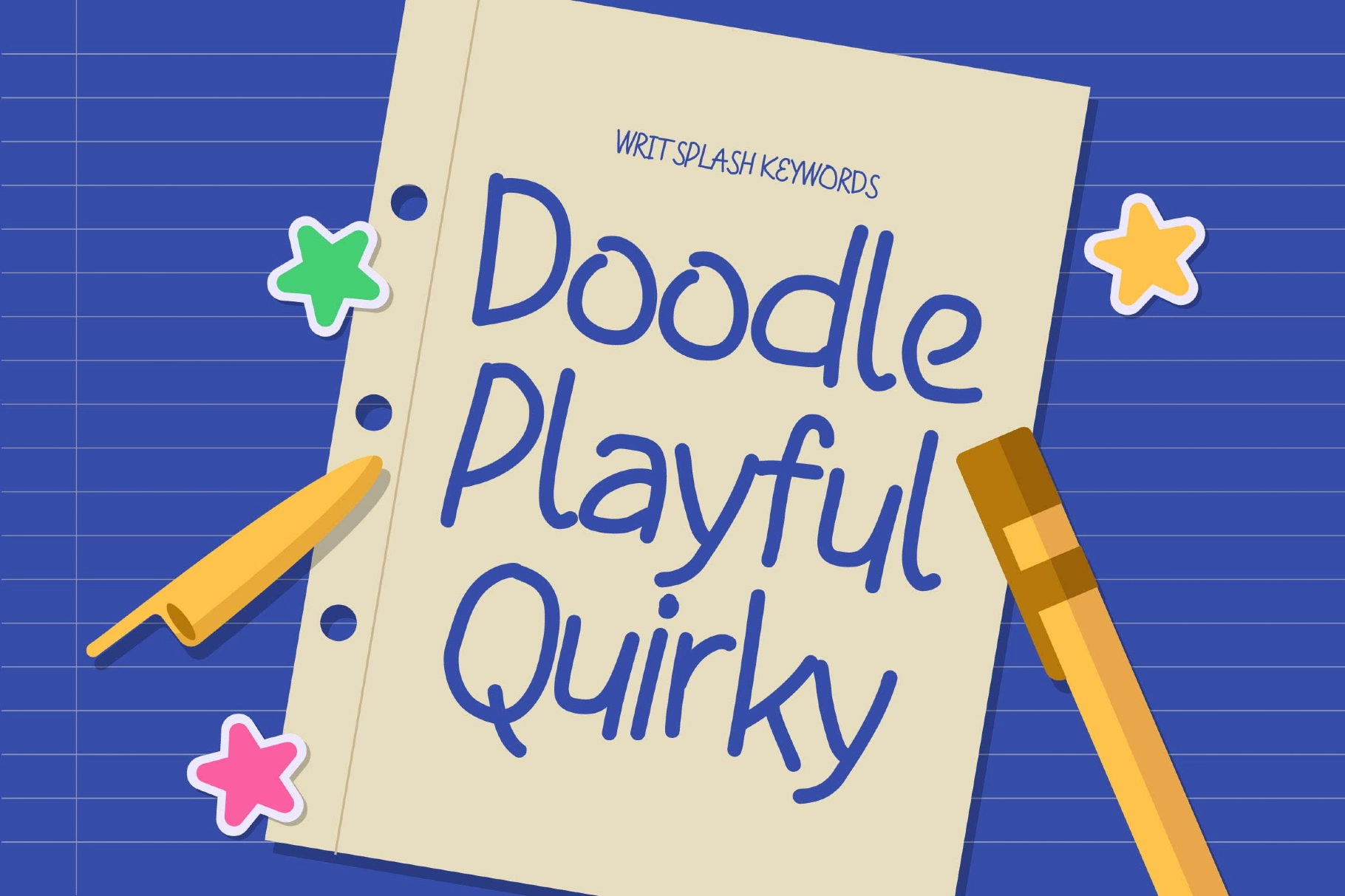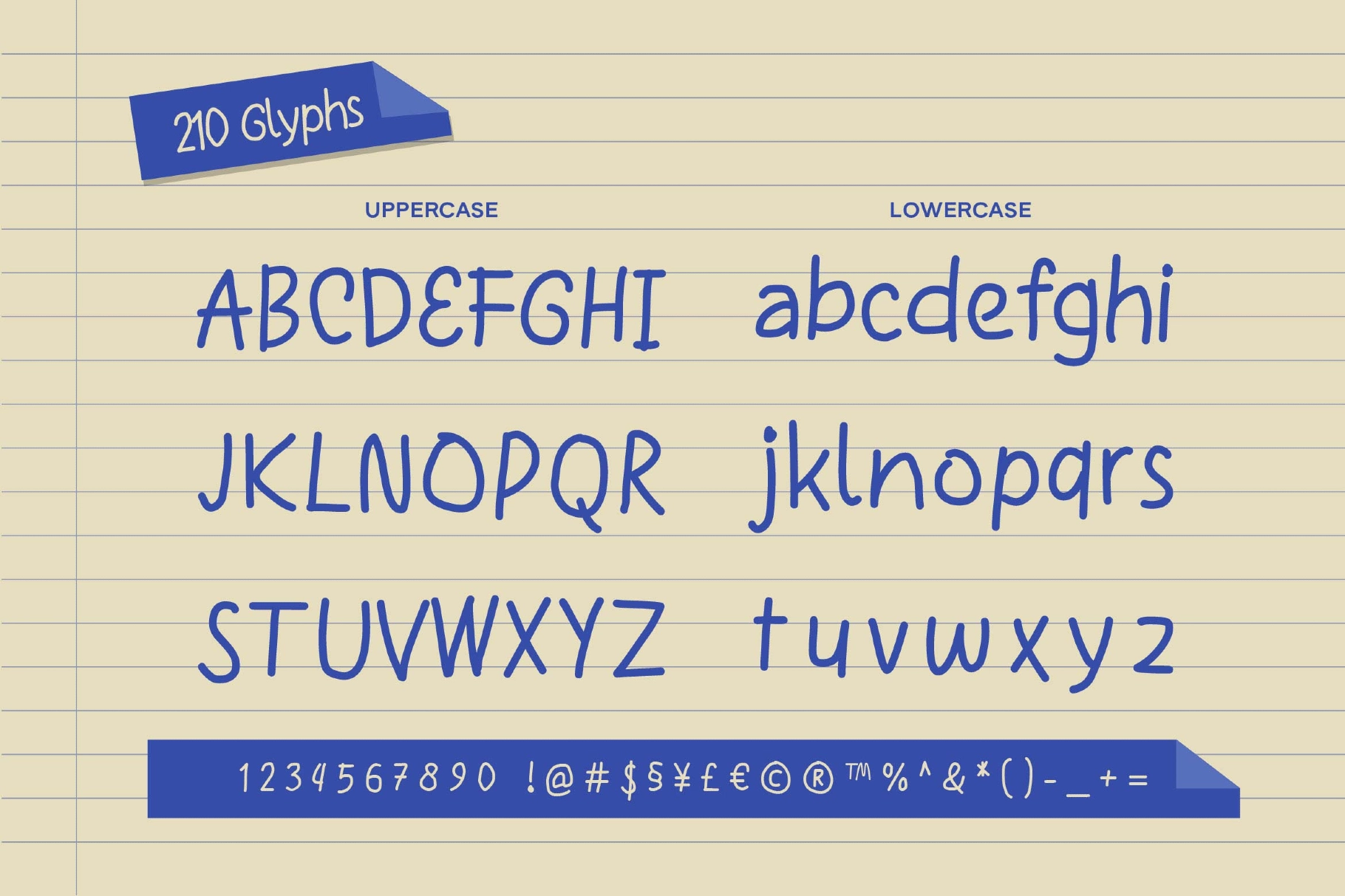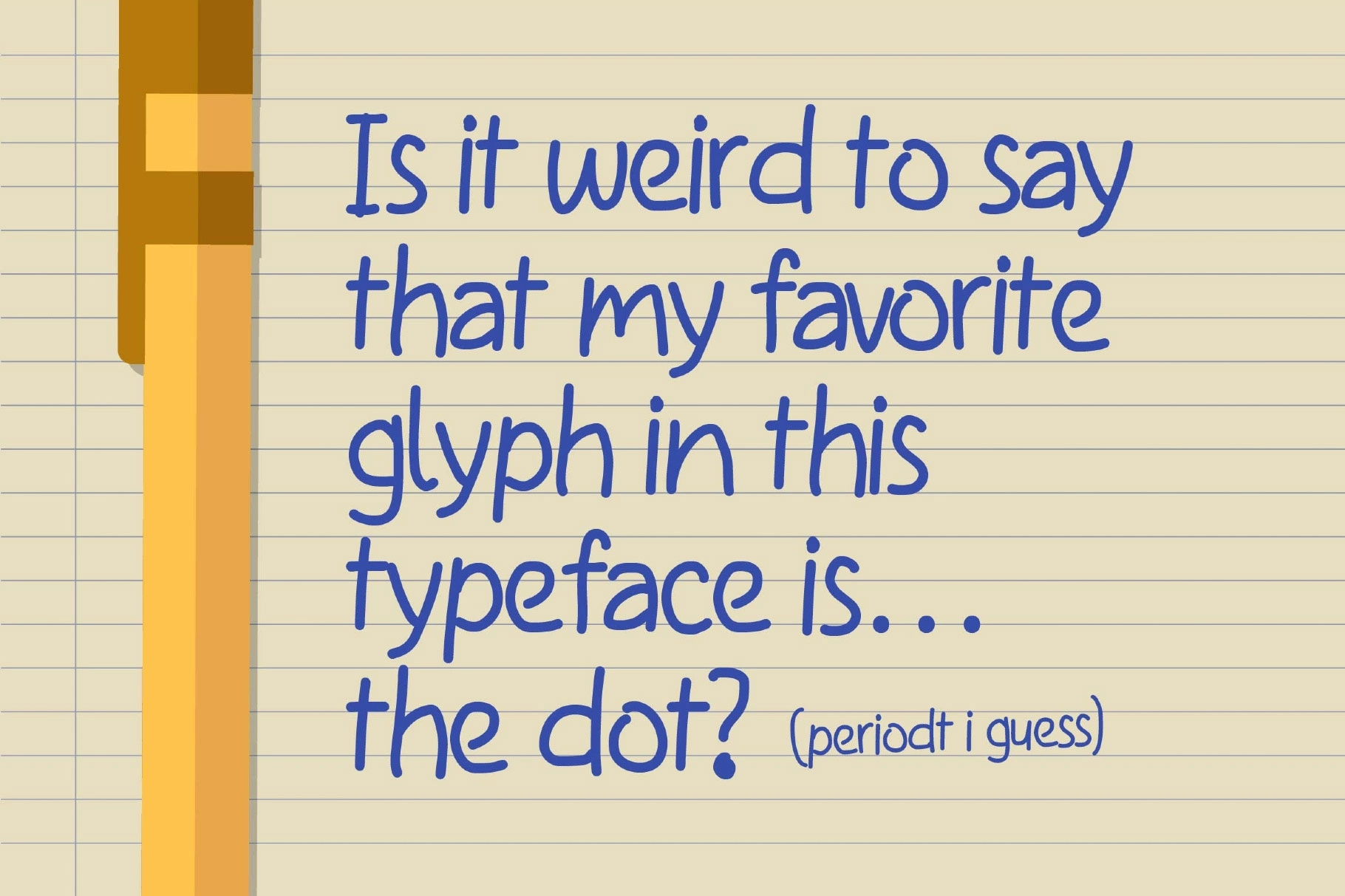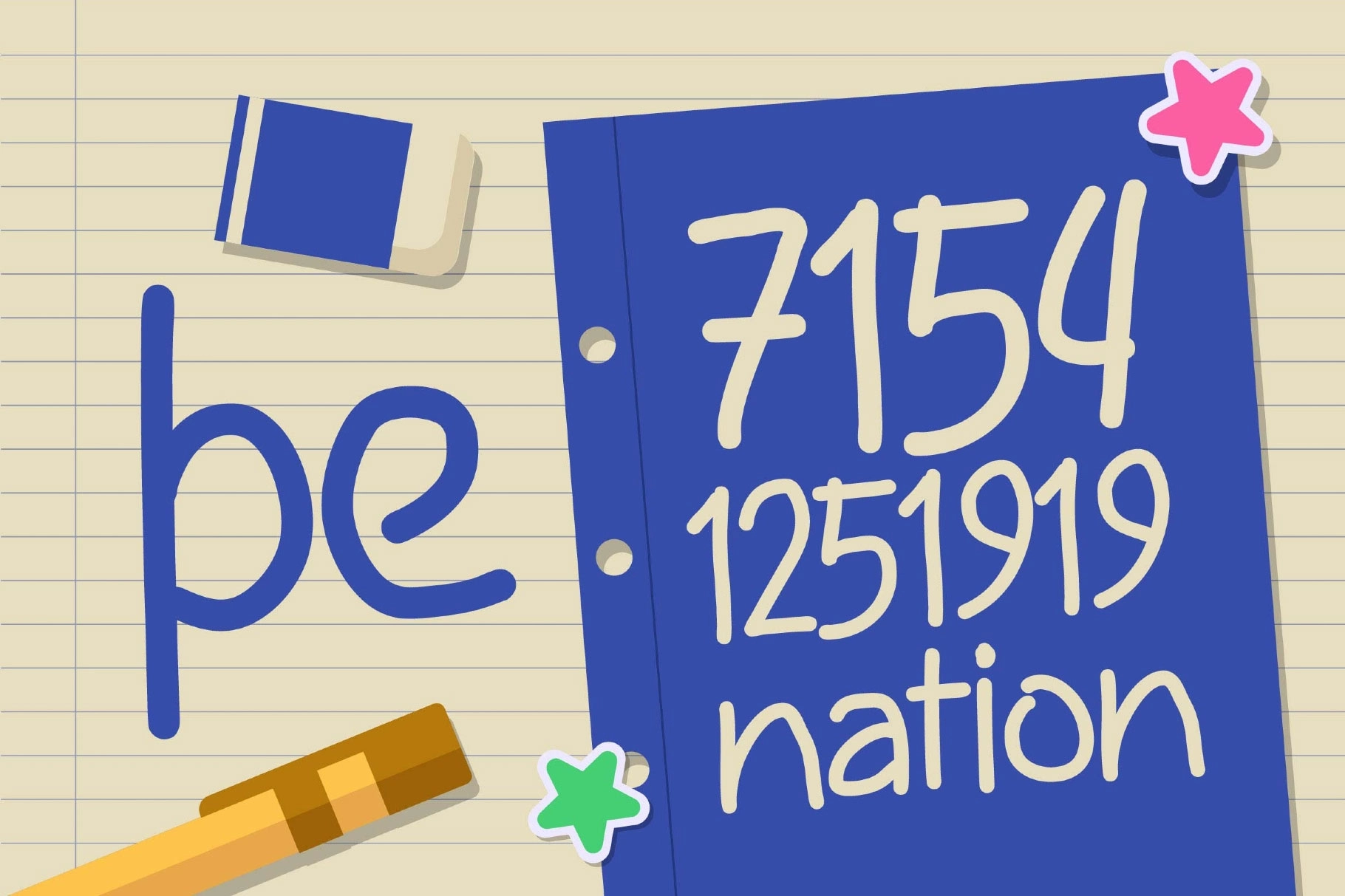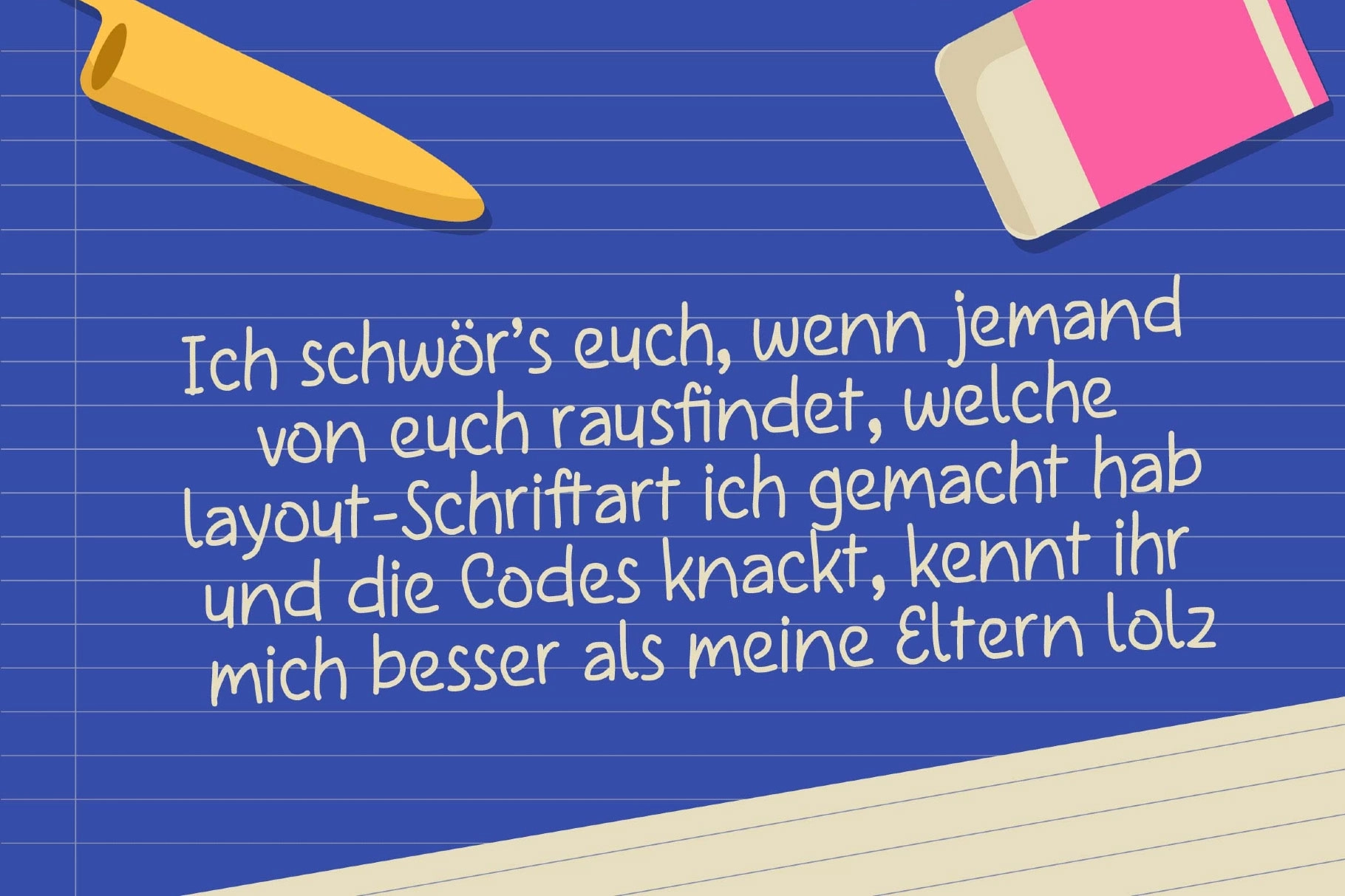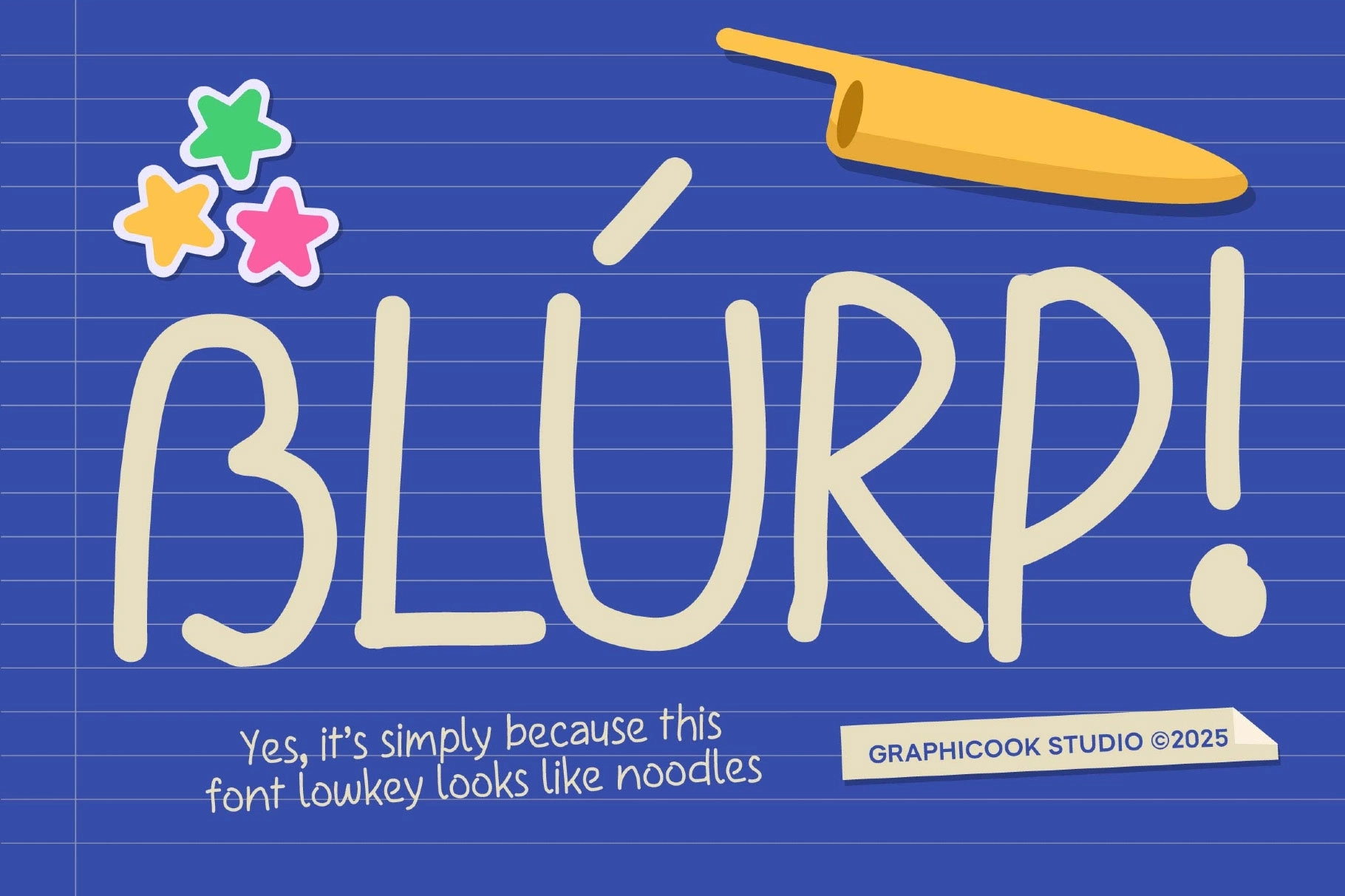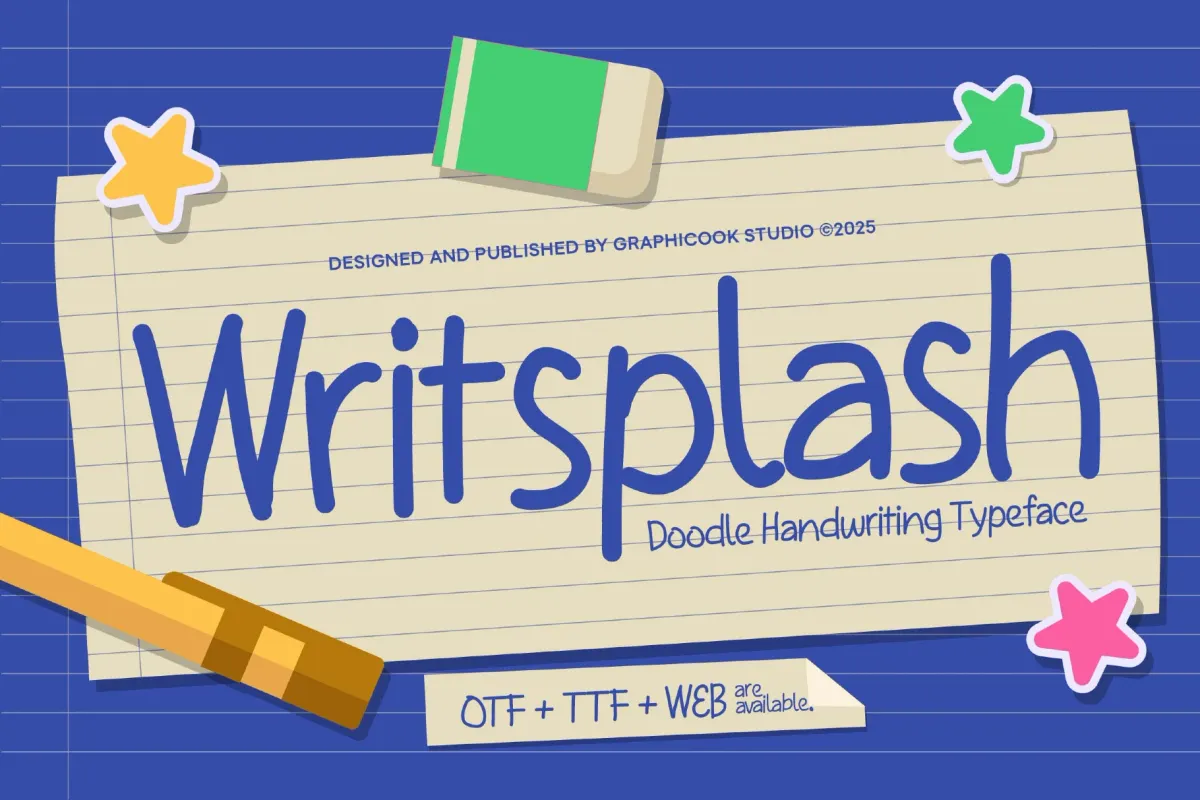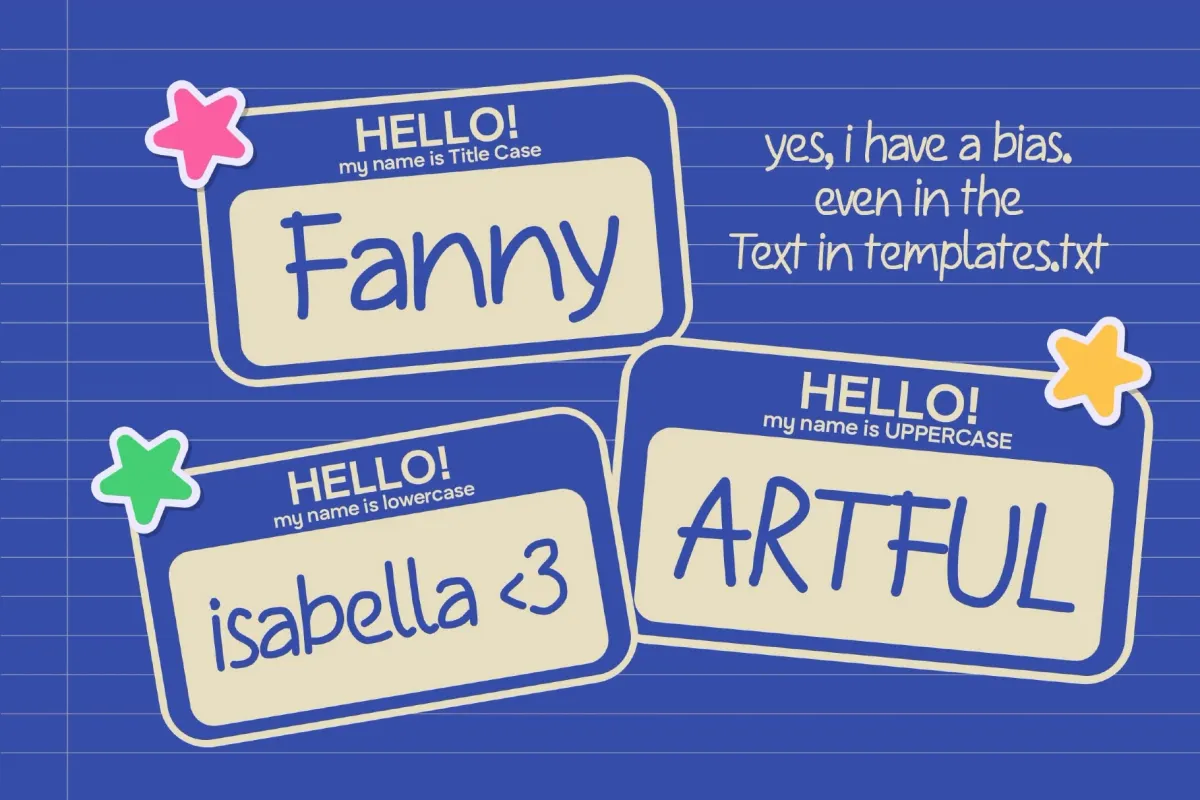
Writsplash Font
Writsplash
Writsplash is a doodle handwriting font with a marker-like stroke, offering a playful and expressive look. Ideal for light, casual, and informal visual projects.